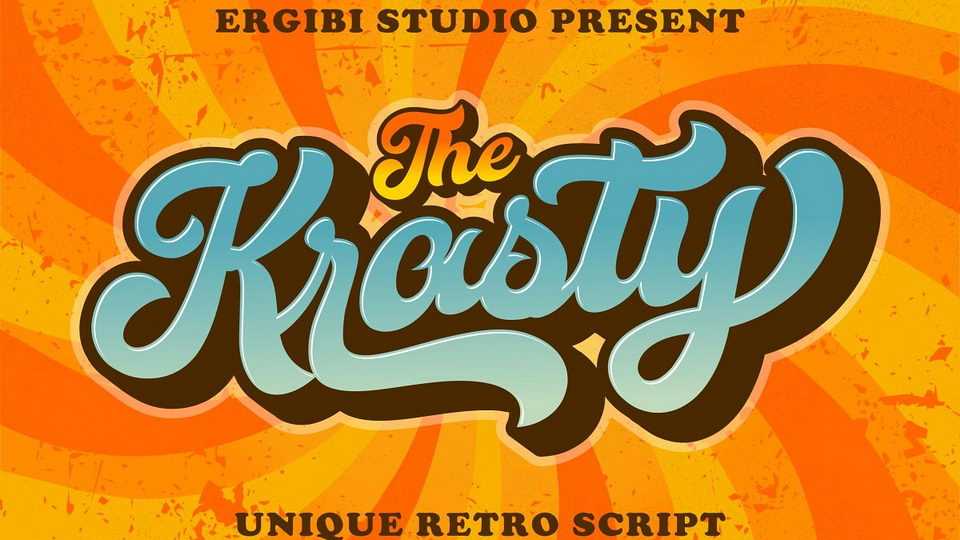
Download Krasty font, a unique retro inspired bold hand lettered typeface to create vintage effect very easily. Krasty font can be applied in various types of projects from logos to branding and merchandise.
Designer: Ergibi Studio